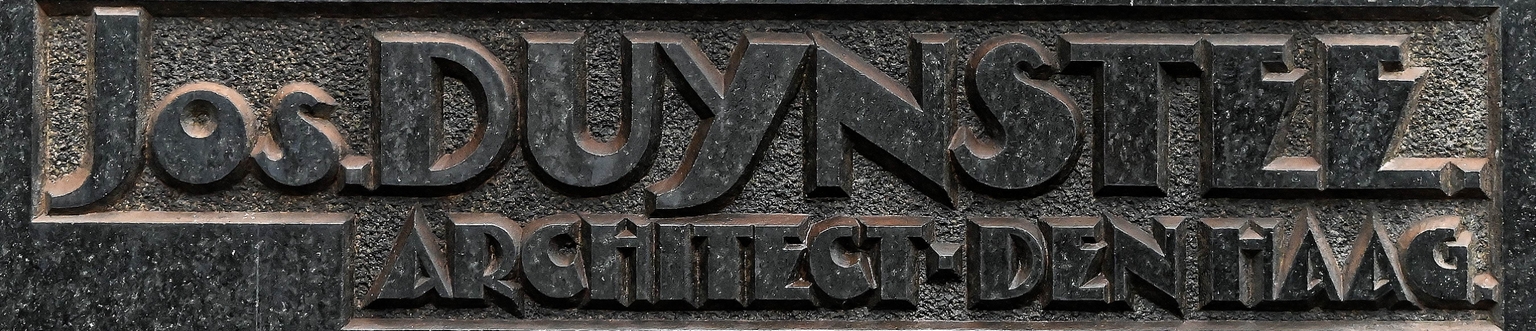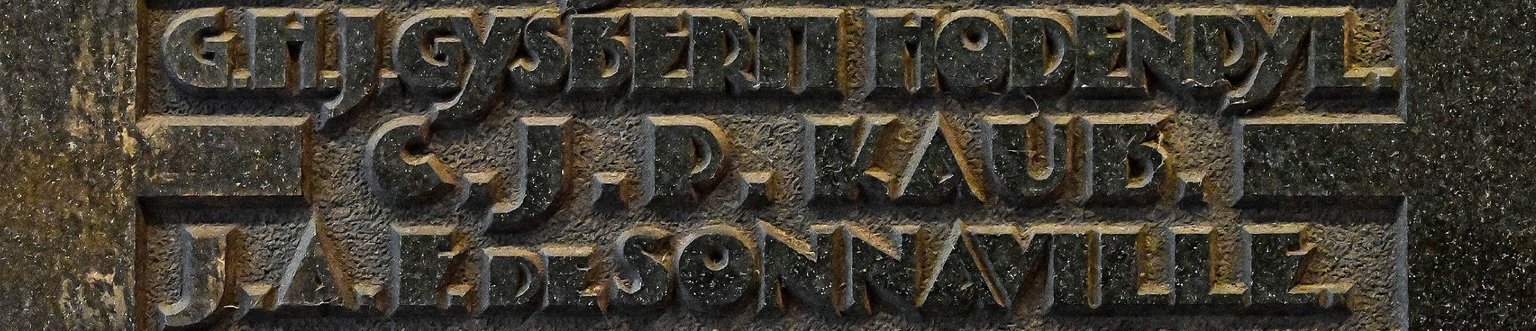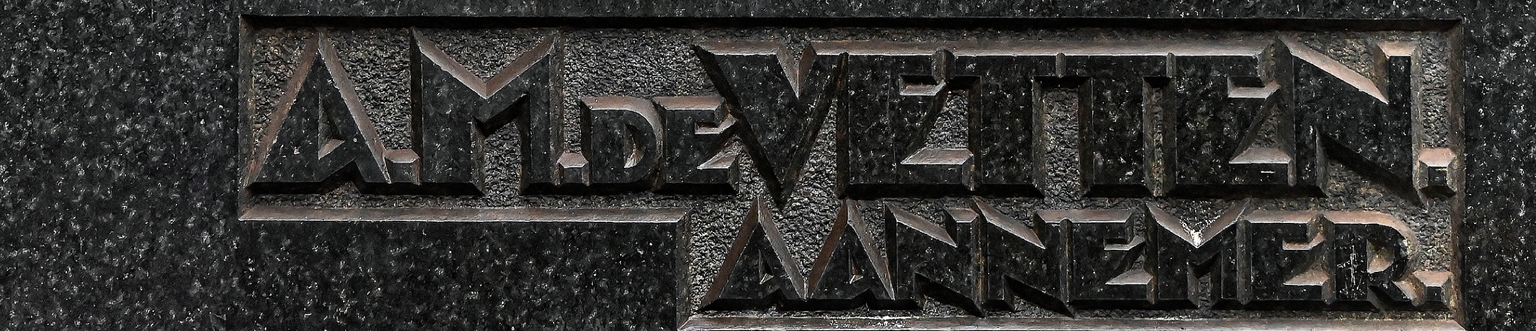
Winkel
Winkel is a striking display typeface designed by Ramiro Espinoza, inspired by the distinctive lettering found on the black stone plaques that commemorate the 1929 expansion of the Passage, The Hague’s historic commercial gallery. The original letterforms—bold, angular, and slightly eccentric—bear the unmistakable influence of the Amsterdamse School and Art Deco, styles that shaped much of Dutch architecture and design in the early 20th century.
Espinoza has carefully studied and reinterpreted these characters, preserving their sculptural rhythm and expressive geometry while extending them into a complete and versatile typeface. Winkel captures the tension between functionality and ornament that defined the era’s public lettering, making it ideal for brochures, posters, websites, and branding that calls for a touch of historical character with a modern edge.
With Winkel, a forgotten detail of The Hague’s architectural heritage is revived and reimagined for contemporary design.